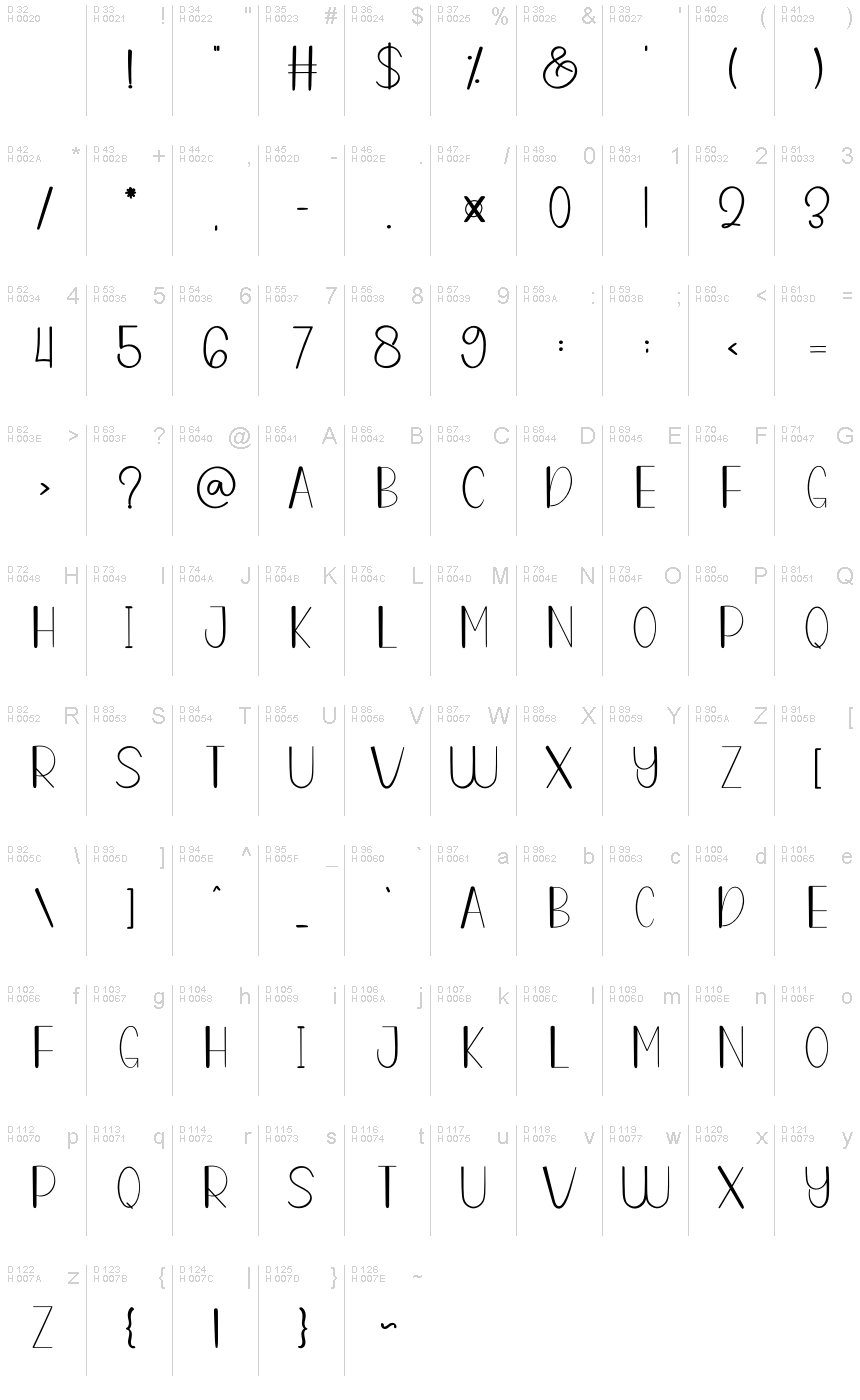
Clean
Clean, crafted by Inermedia Studio, stands out with its semi-light weight and semi-condensed width that bring a sleek elegance to the handwritten font style. This font carries a personal touch, reminiscent of a meticulous penmanship that exudes clarity and sophistication. The distinct characteristics of Clean make it versatile for an array of creative projects — from branding materials to editorial design, where a touch of human warmth is desired without sacrificing modernity.
The aesthetic appeal of Clean lies in its balance between approachability and professional neatness. Its clean lines contribute to readability while maintaining an inviting, individualistic flair. Ideal for designers seeking to inject subtle personality into their work, Clean promises to elevate your designs with its understated charm and contemporary spirit.